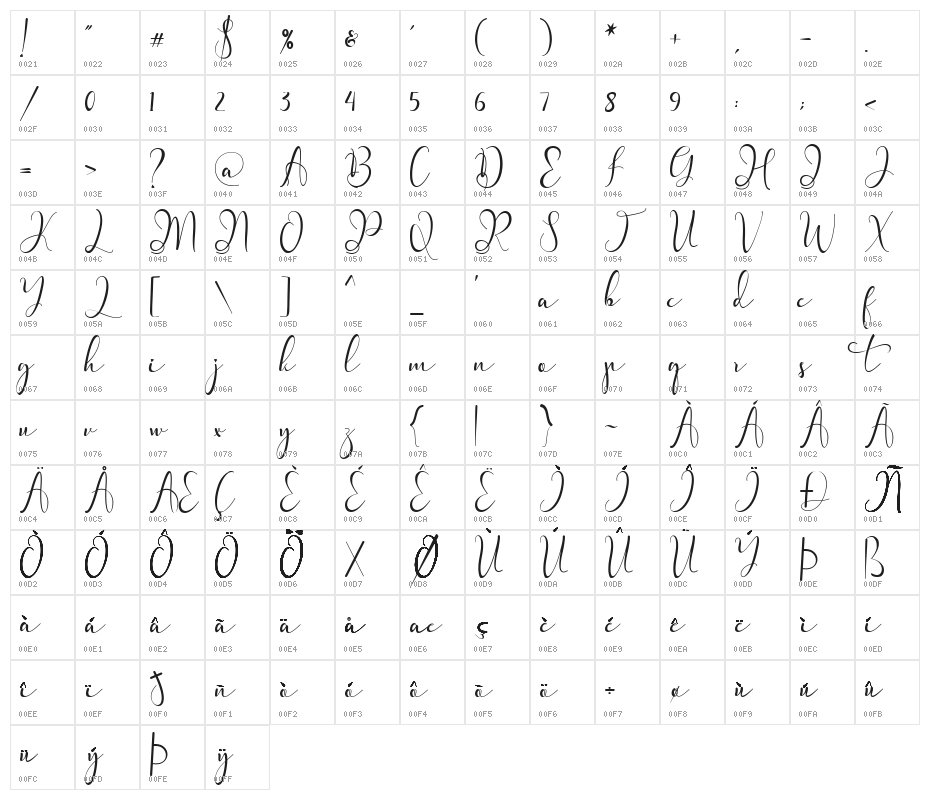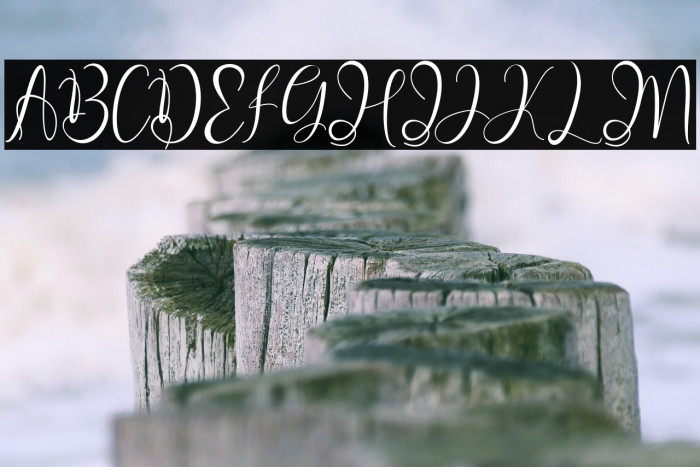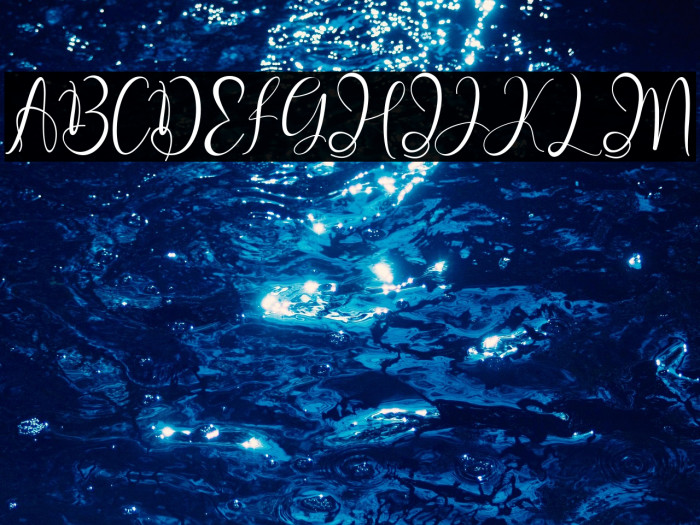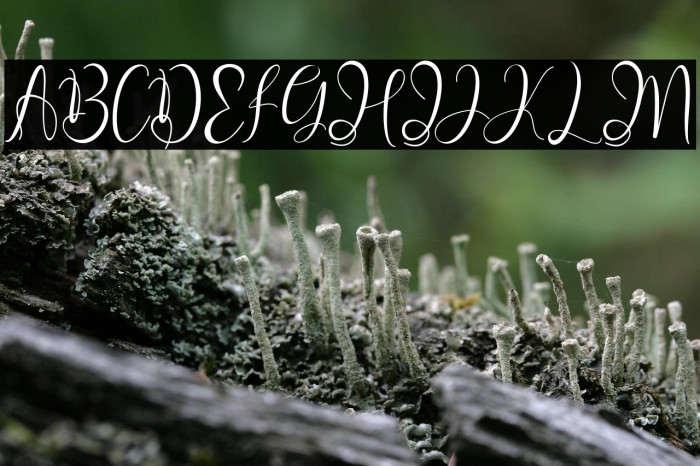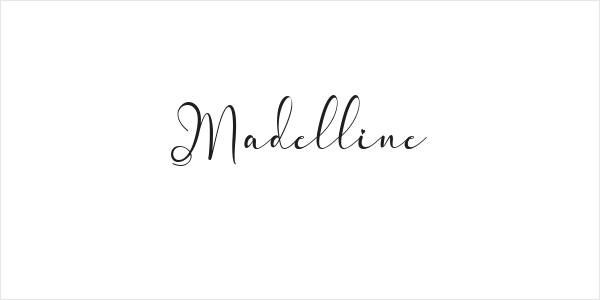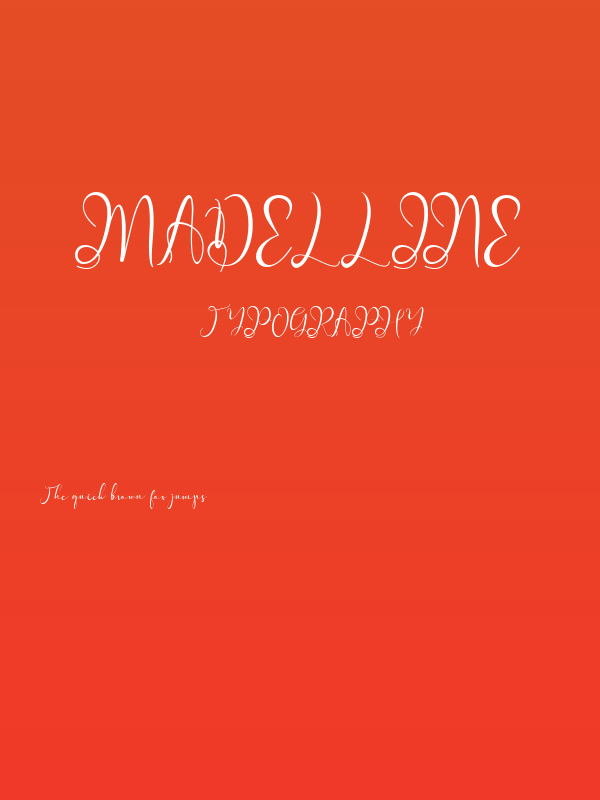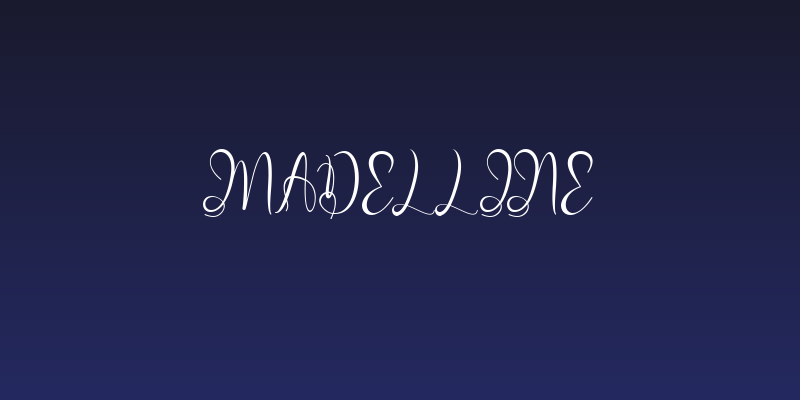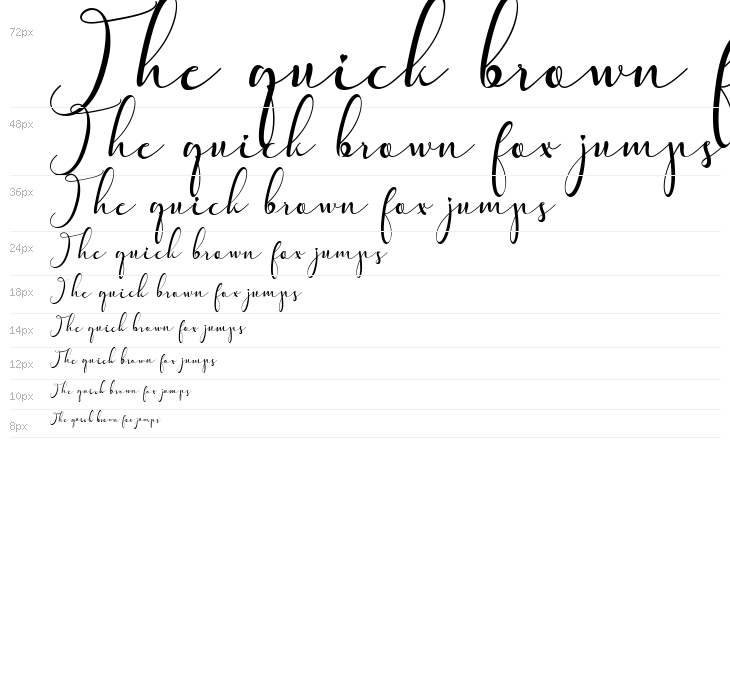
Madelline Font
Madelline Description
This elegant script font features flowing, interconnected letters with a graceful and sophisticated appearance. The uppercase letters are ornate, with intricate loops and swirls, while the lowercase letters maintain a consistent fluidity, enhancing the overall aesthetic. The numbers and special characters are designed to complement the letters, maintaining the same elegant style. This font exudes a sense of luxury and refinement, making it ideal for formal invitations, branding, and decorative purposes. Its artistic flair and attention to detail make it stand out, capturing attention with its unique charm.
| Proposed Projects | Ideal for wedding invitations, luxury branding, decorative signage, and elegant stationery. |